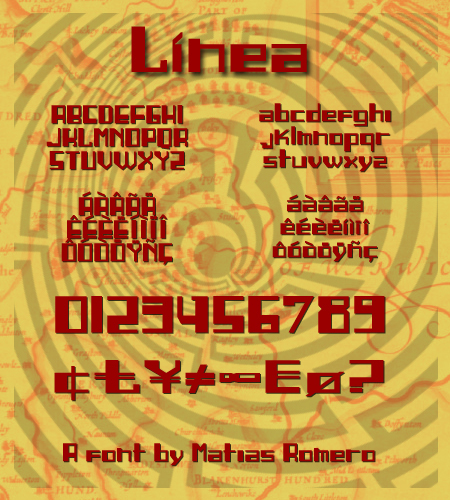
Linea, a captivating display font designed by Matias Romero, exudes a bold, techno-inspired aesthetic. This expanded font captivates with its sleek, geometrical forms and sharp, angular edges, creating a striking visual identity. Linea's unique character evokes a sense of modernity and technological prowess, making it an excellent choice for branding, advertising, and digital interfaces.
The font's expanded width lends it a powerful presence, while its clean, minimalist style ensures a refined and sophisticated appearance. Linea's versatility shines in a wide range of applications, from eye-catching headlines and impactful logos to dynamic user interfaces and cutting-edge digital experiences. Its distinctive techno-infused personality makes it a compelling choice for projects that seek to convey a futuristic, cutting-edge aesthetic.
Linea
Matias Romero